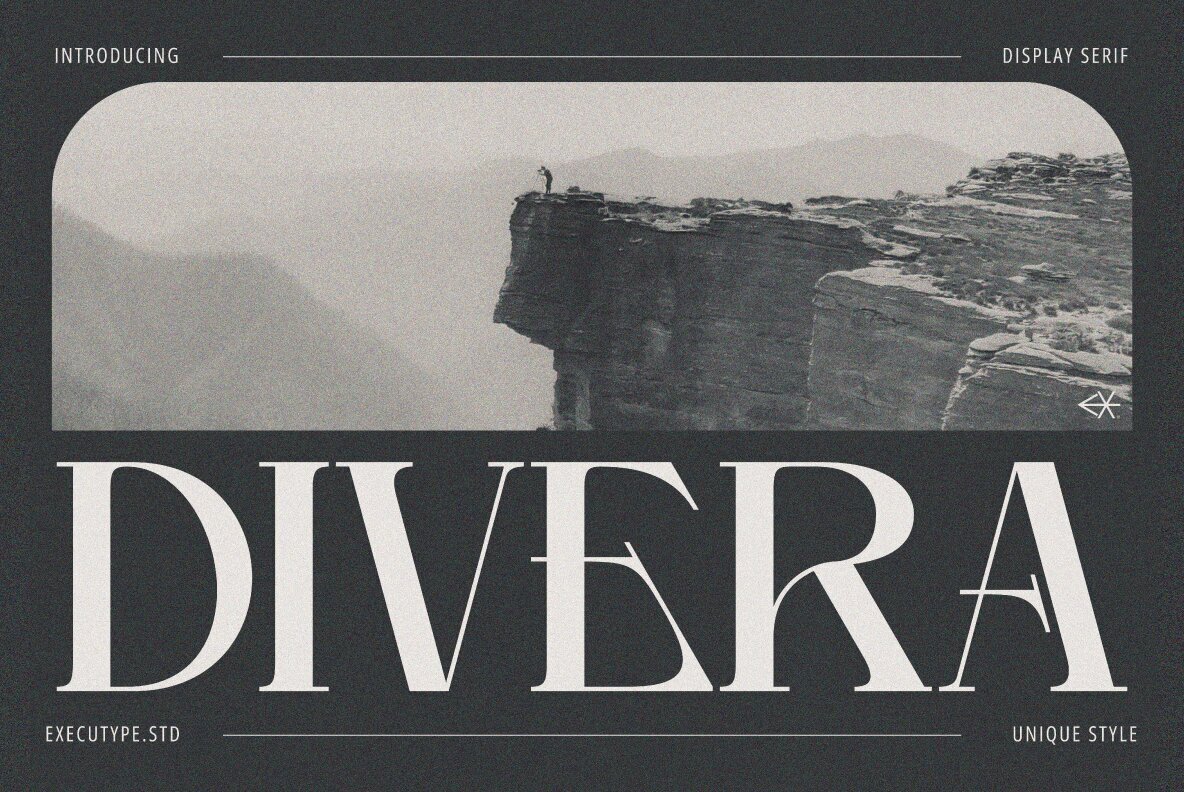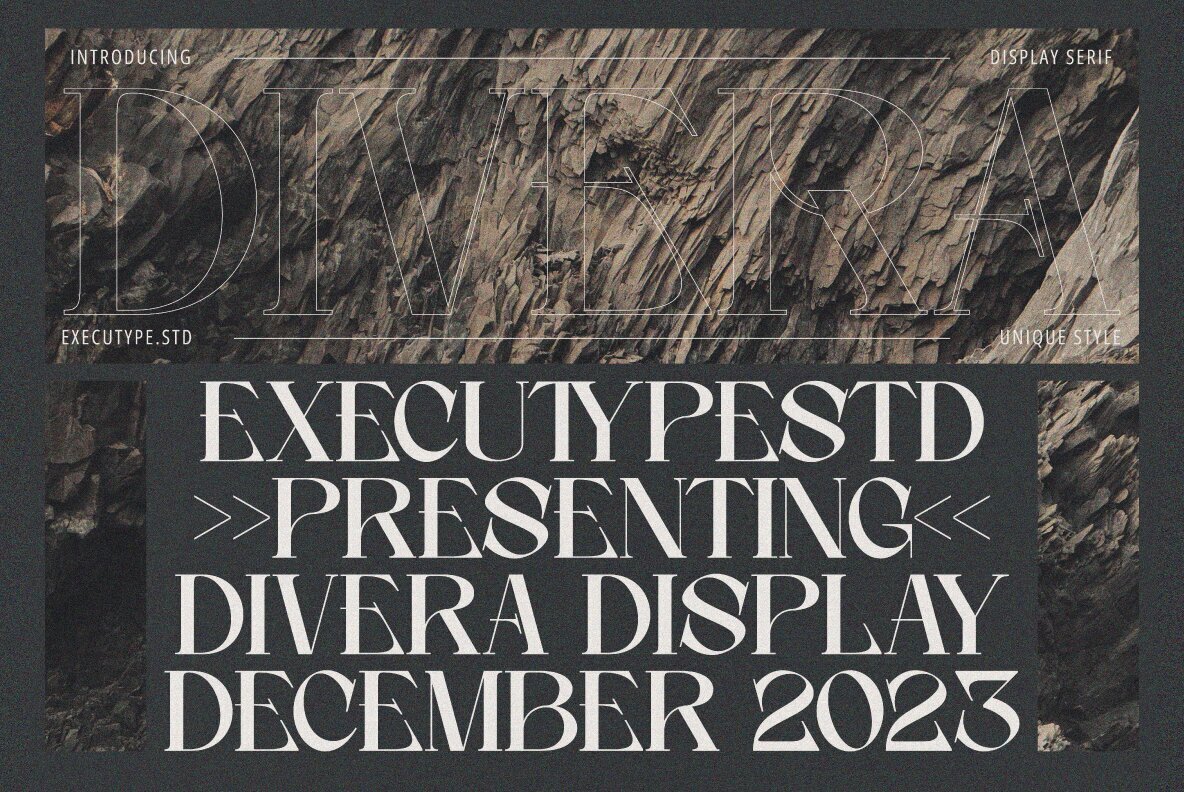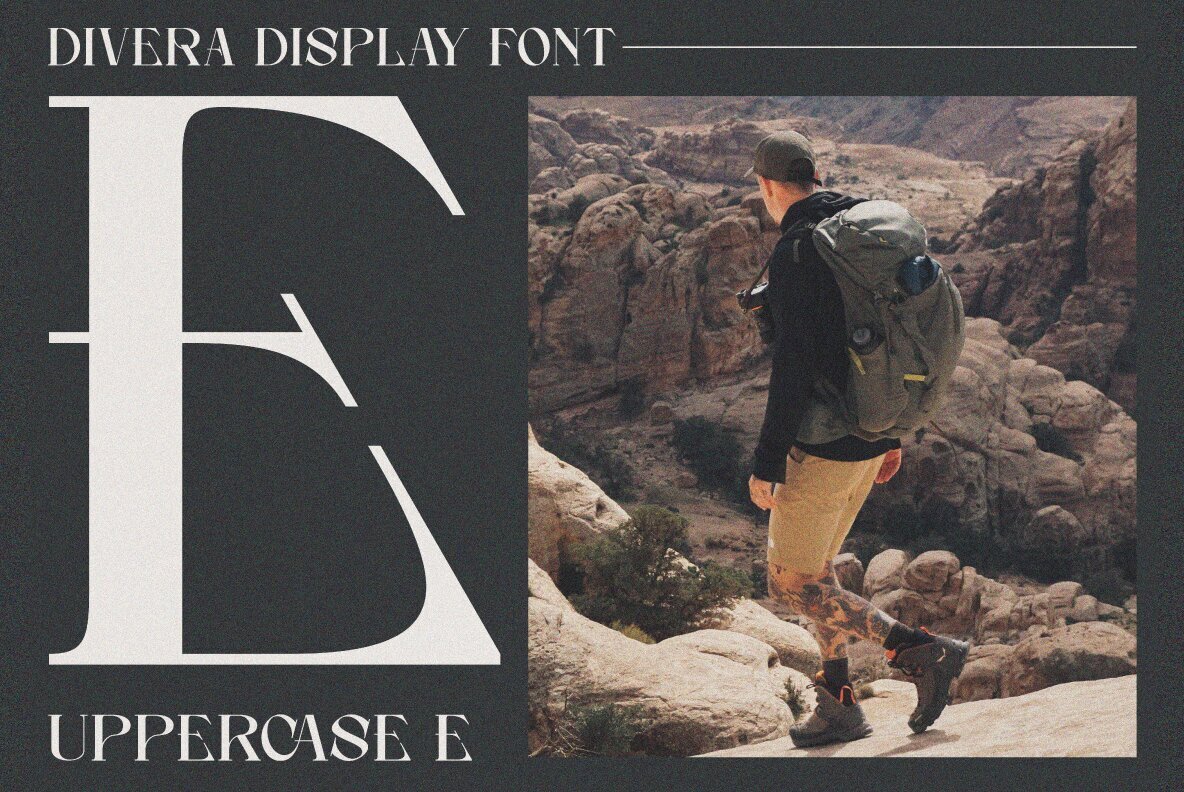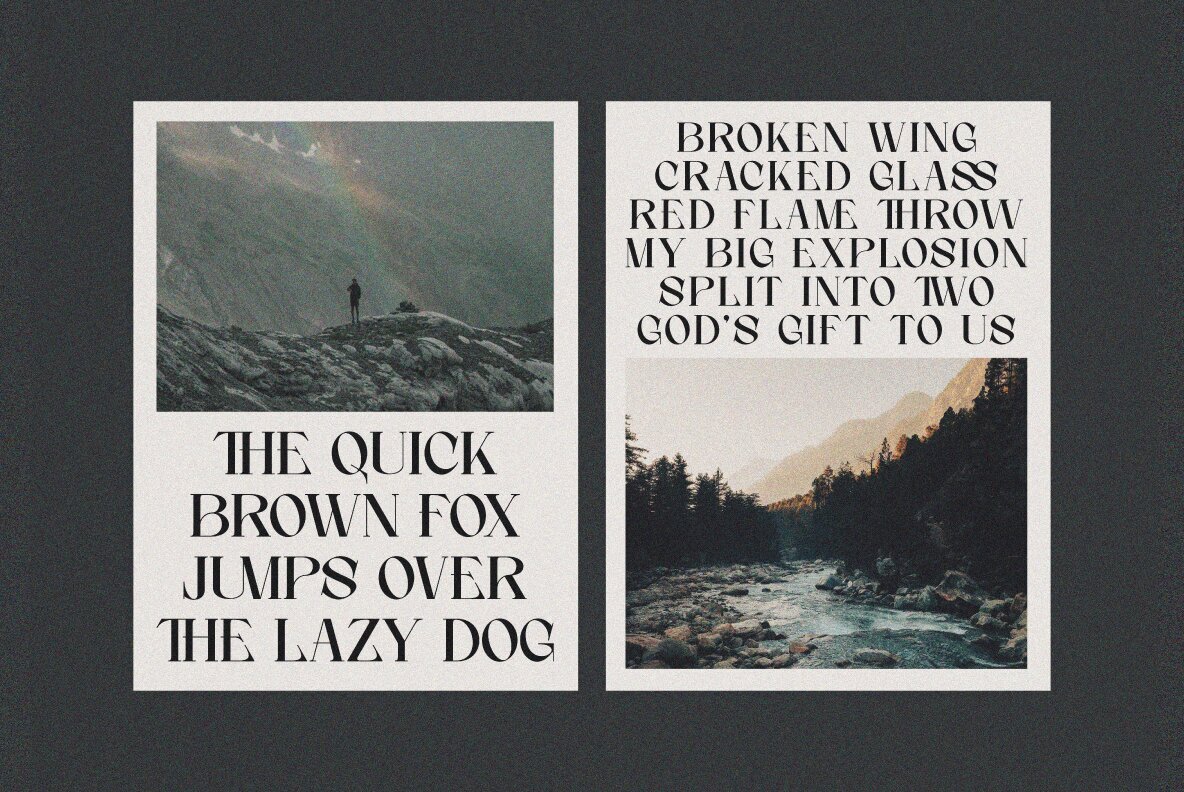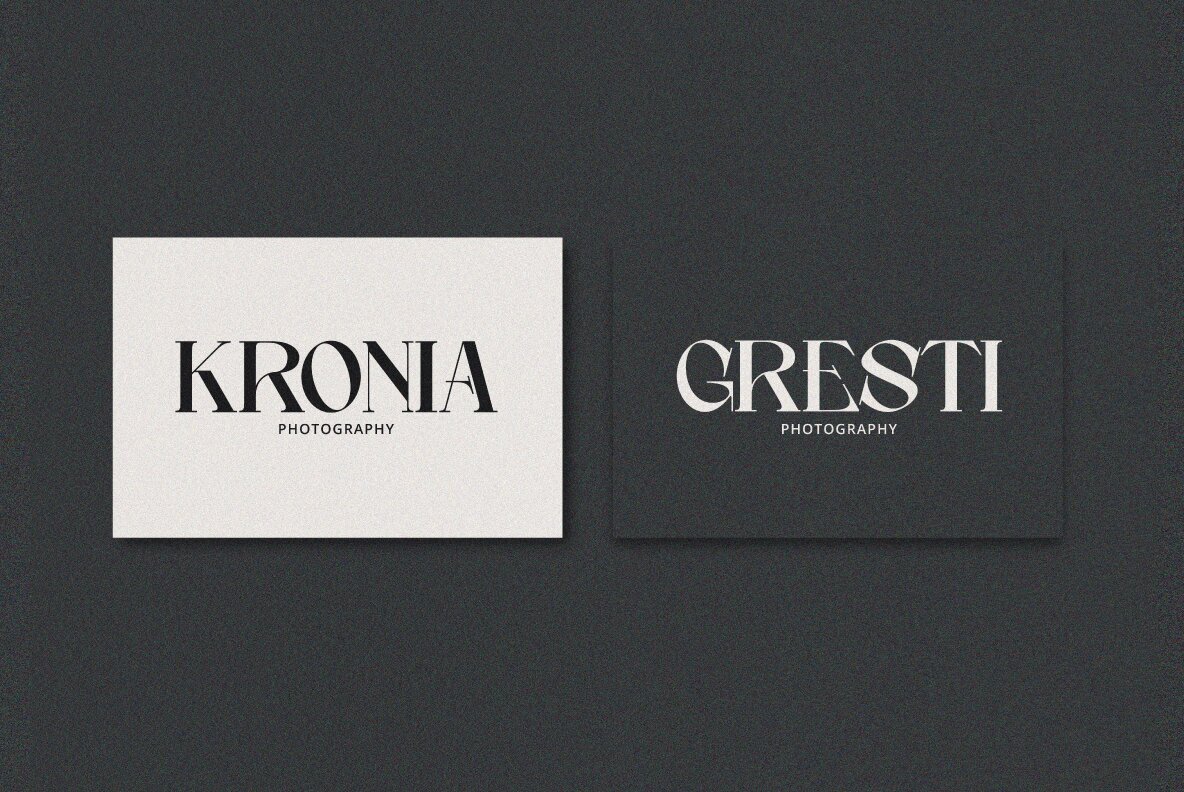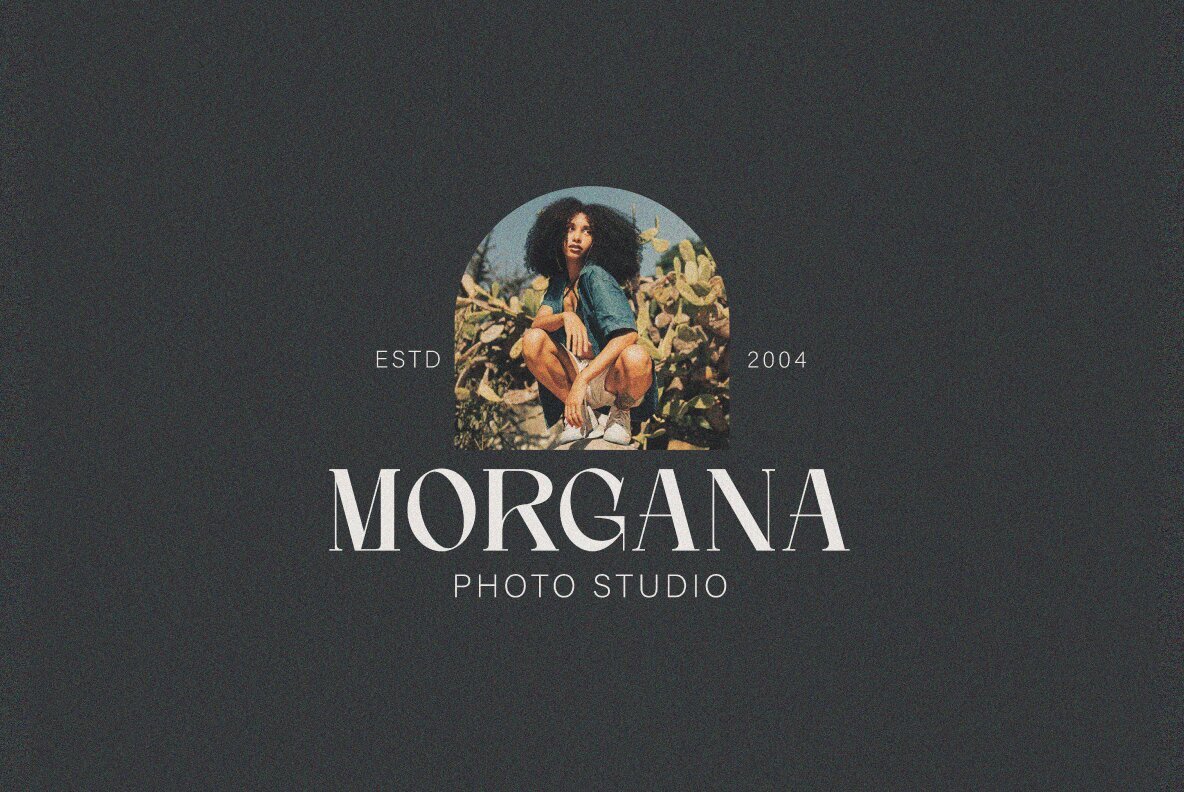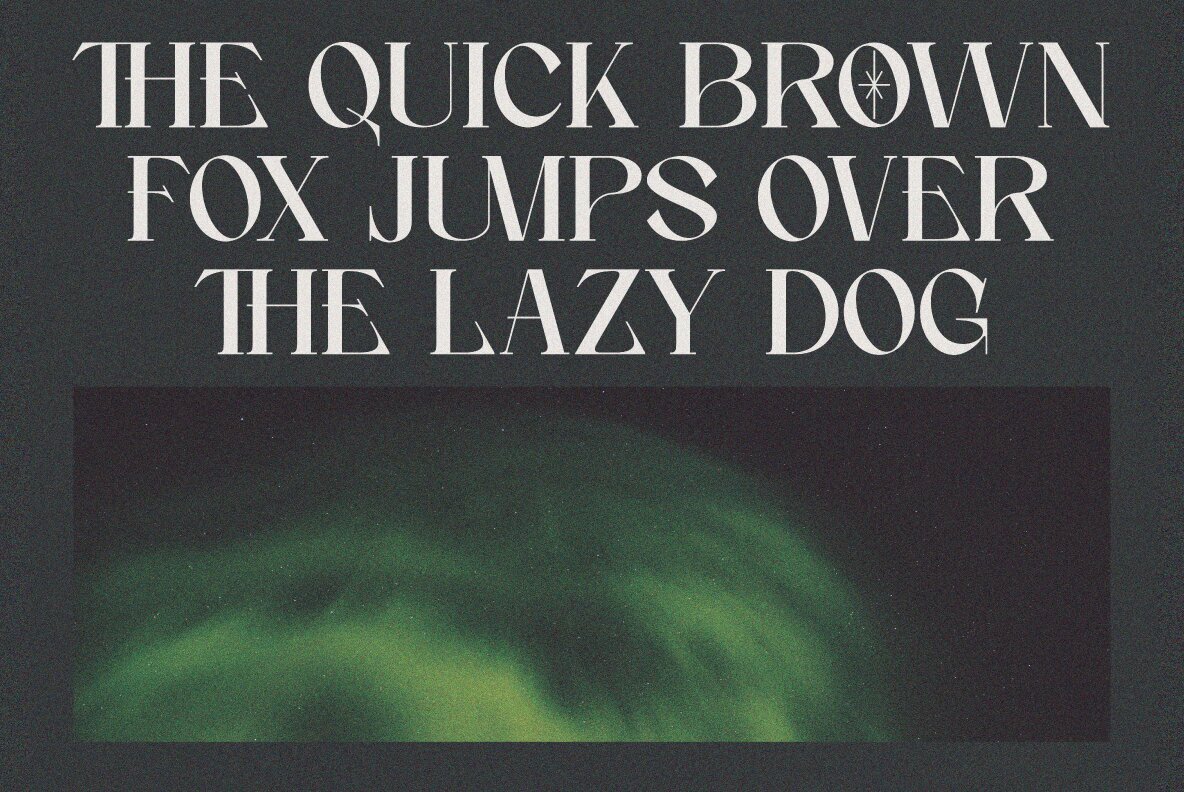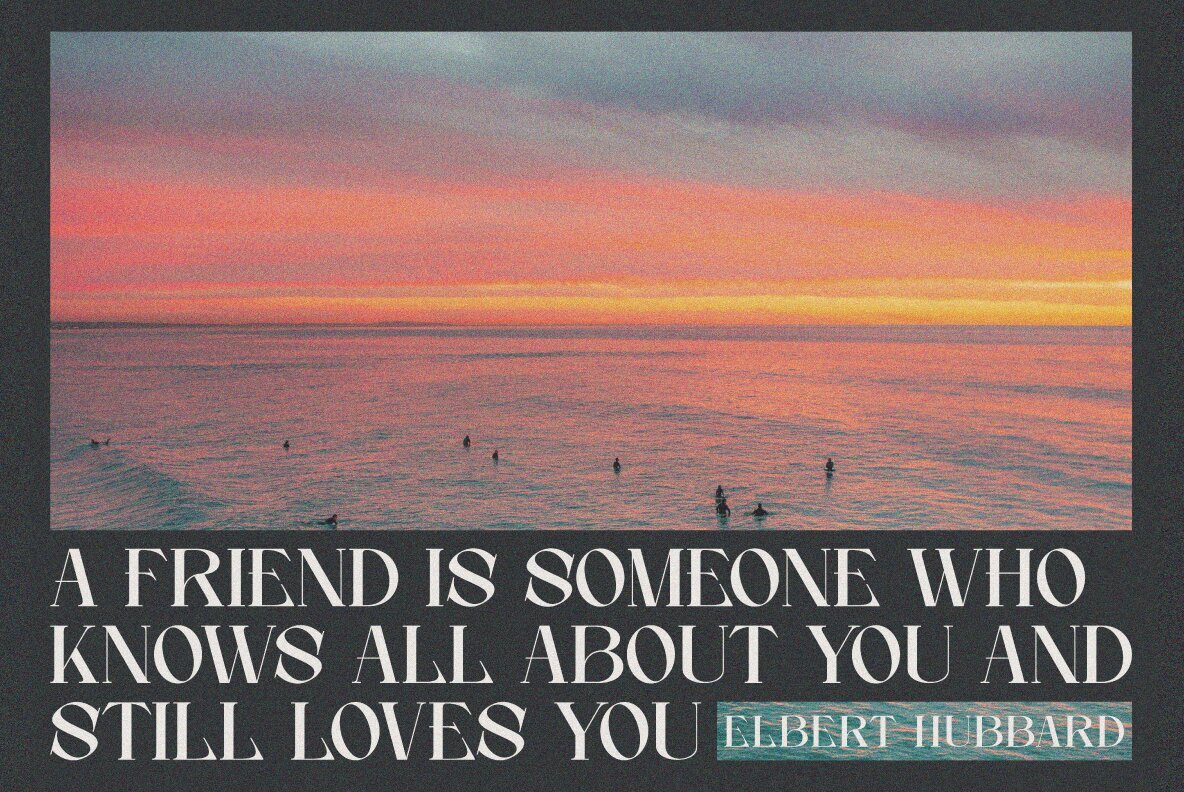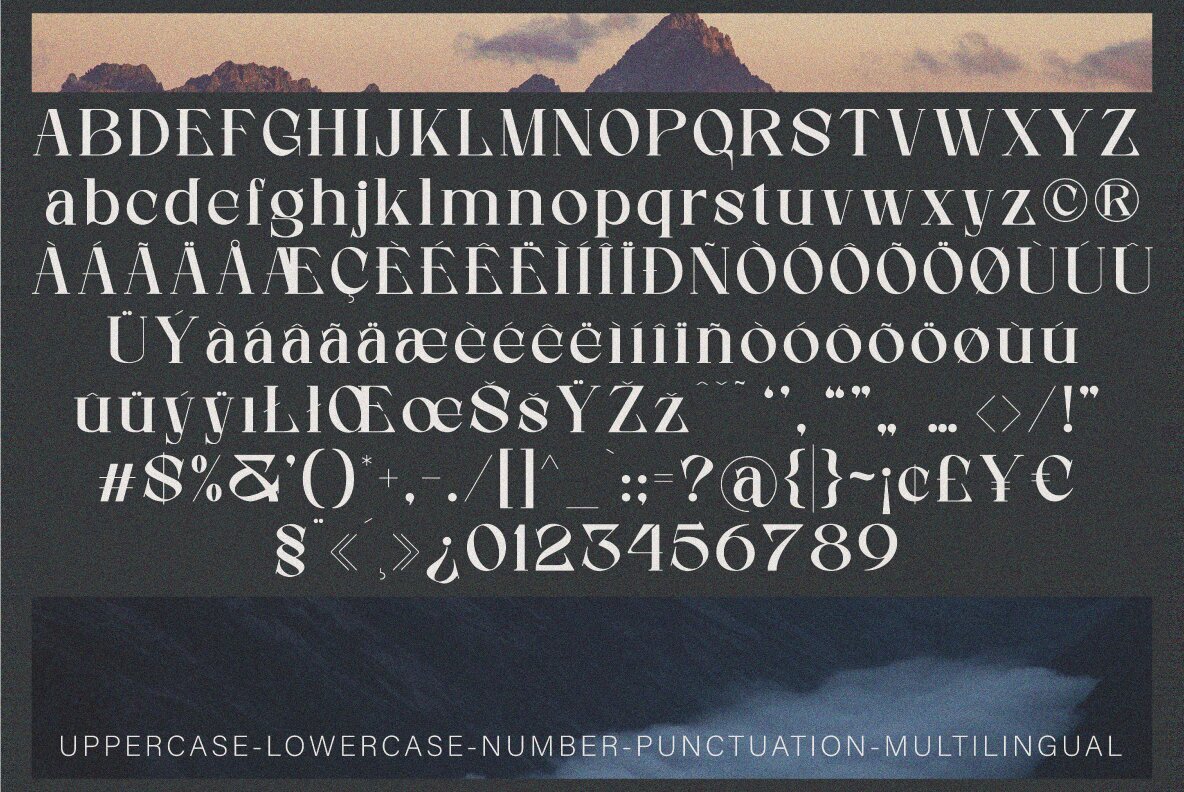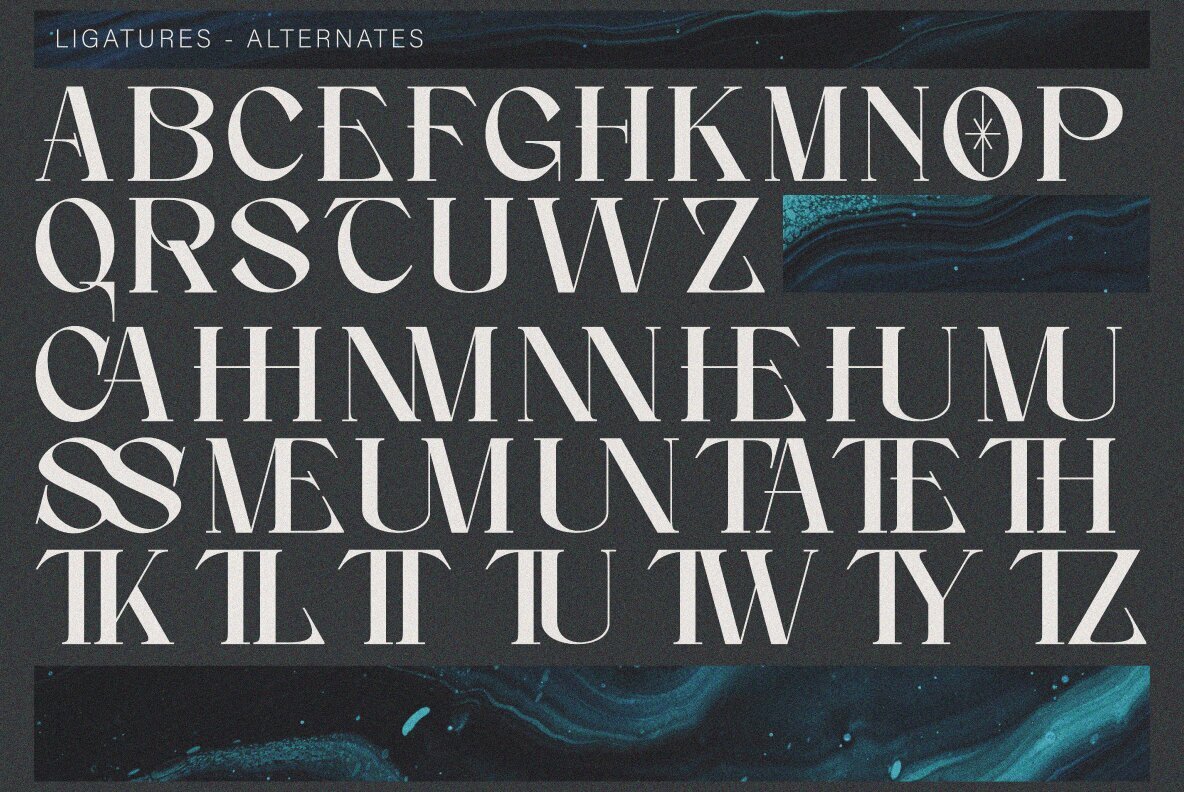
Divera Font
Divera Display Serif Regular
Experience the elegance of Divera Display Serif, a modern serif with a unique, strong style and a dancing baseline. This typeface shines on various design projects, from invitations and greeting cards to branding materials, business cards, quotes, and posters. Divera Display Serif is versatile enough for both display sizes and text, ensuring clarity and presence in logo designs and editorial work.Divera Display Serif
Features of Divera Display Serif